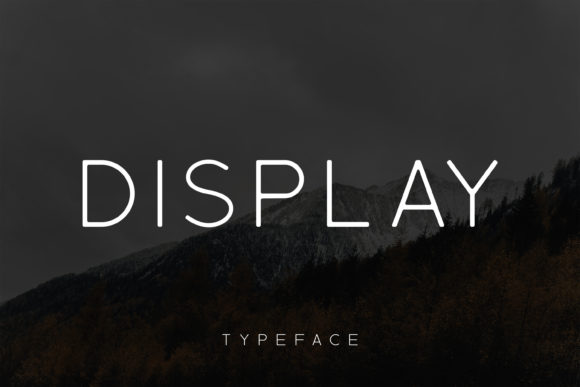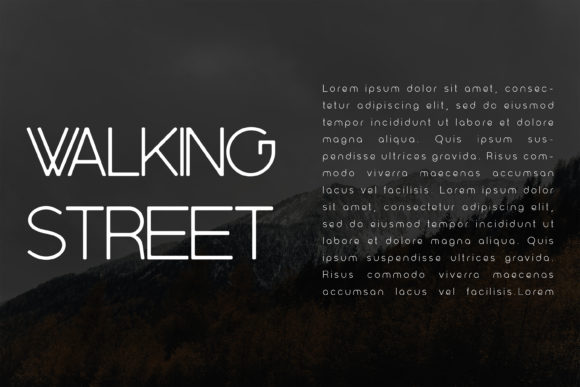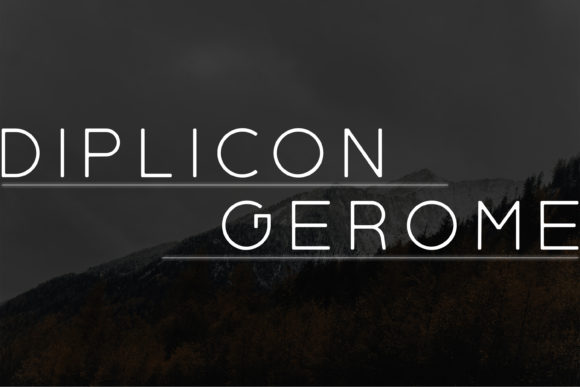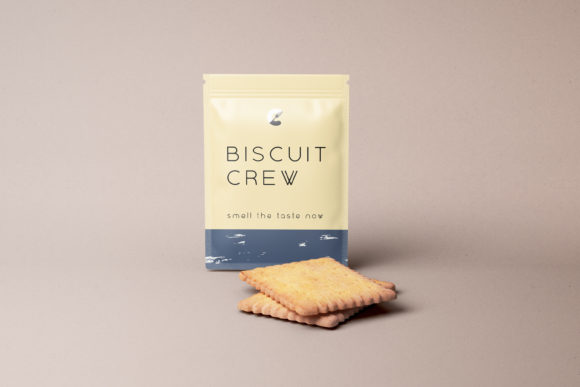
The Ultimate Guide to Gerome Font: Elevate Your Designs with a Modern Sans Serif
I’ll never forget the time I was working on a branding project for a trendy new coffee shop. My client wanted a font that was modern, fresh, and would stand out on their packaging and marketing materials. I spent hours scouring the internet for the perfect font, but nothing seemed quite right. That was until I stumbled upon Gerome Font. ✨
Gerome is a unique and modern sans serif font that’s perfect for headlines, big text, branding, logotypes, and display usage. Its clean lines and geometric shape make it a versatile choice for a wide range of design projects. In this article, we’ll dive into the world of Gerome Font and explore its features, uses, and alternatives.
An Honest Review of Gerome Font
- ✅ Unique and modern design: Gerome Font has a distinctive look that’s sure to make your designs stand out.
- ✅ Highly versatile: This font is perfect for a wide range of design projects, from branding and logotypes to headlines and display text.
- ✅ Clean and geometric shape: Gerome’s clean lines and geometric shape make it easy to read and visually appealing.
- ✨ OpenType features: Gerome Font supports OpenType features, including glyphs and stylistic alternates, which can add an extra layer of creativity to your designs.
While Gerome Font is an excellent choice for many design projects, there are a few things to keep in mind. 🤔
- ⚠️ Limited use in body text: Due to its modern and geometric design, Gerome Font may not be the best choice for body text or long-form content.
- ⚠️ May not be suitable for formal or traditional designs: Gerome’s bold and modern look may not be suitable for formal or traditional designs, such as luxury brands or government institutions.
The Backstory of Gerome Font
Gerome Font was designed by a team of typographers who wanted to create a modern and unique sans serif font. Inspired by the geometric shapes of modern architecture, Gerome Font was designed to be bold, fresh, and versatile. 💡
Q: What is Gerome Font?
Gerome Font is a modern sans serif font designed for headlines, big text, branding, logotypes, and display usage.
Q: Is Gerome Font suitable for body text?
While Gerome Font can be used for body text, it may not be the best choice due to its modern and geometric design. It’s better suited for headlines, titles, and display text.
Q: Does Gerome Font support OpenType features?
Yes, Gerome Font supports OpenType features, including glyphs and stylistic alternates, which can add an extra layer of creativity to your designs.